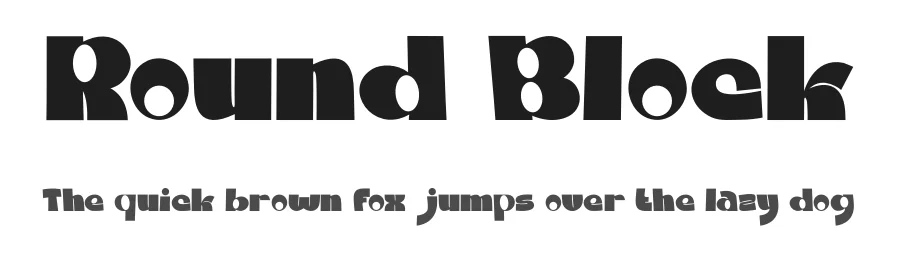
About Pogo Font
Pogo Specifications
| Font Family | Pogo |
| Full Name | Pogo |
| PostScript Name | PogoRegular |
| Designer | Sahirul, Semarang, alexatype |
Pogo supports 197 languages.
Pogo Font is a decorative font that shines as a display or heading face. Pair it with a clean sans-serif or serif font for body text β the contrast creates a clear hierarchy while the two styles stay balanced and easy to read.
Pogo Font
by Alexa